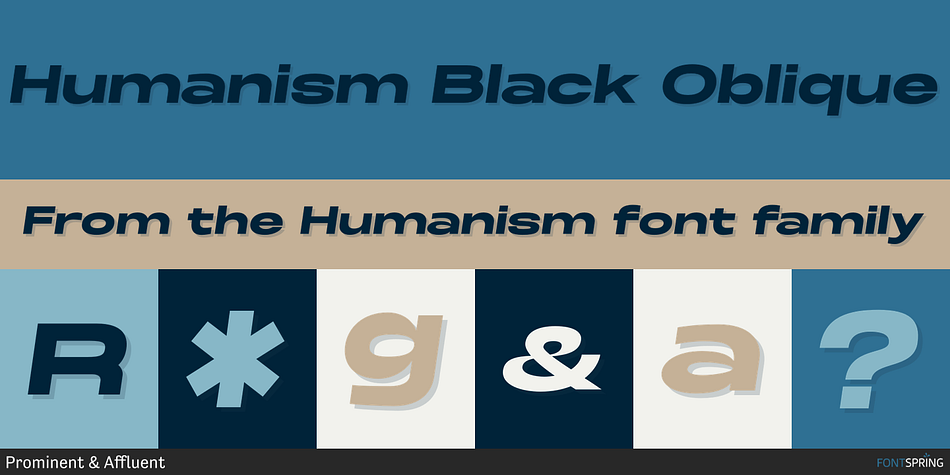
Humanism Black Oblique
Humanism is a sans serif font family. This typeface has seventeen styles and was published by Prominent & Affluent.
Inspired by the urban typography, which later led to a grotesque style. It can be used for bold editorial statements graphic heavy prints or just as a simple logo. This new type will definitely make your designs stand out and unique. Its robust, strong, and contemporary form makes it perfect for any project that needs extra strength. Humanism is available from A to Z in the regular and italic style, developed in an urban style.